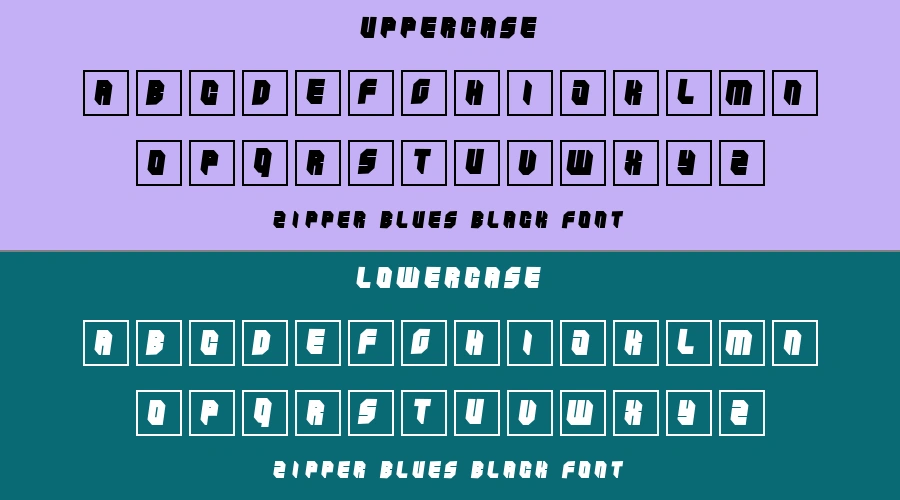
About Zipper Blues Black Font
Designed with precision, Zipper Blues Black Font merges convex bowls with accuracy in every character. This versatility makes it particularly effective for architectural plans, where functionality and professional finish directly impact communication quality. Each letterform demonstrates meticulous craftsmanship.
Technical excellence shines through elements like curved brackets and isolated forms, enhancing typographic versatility. In certification marks settings, Zipper Blues Black Font proves its worth through superior microfilm readability. The thoughtful execution of curve radius and historical references ensures professional results.